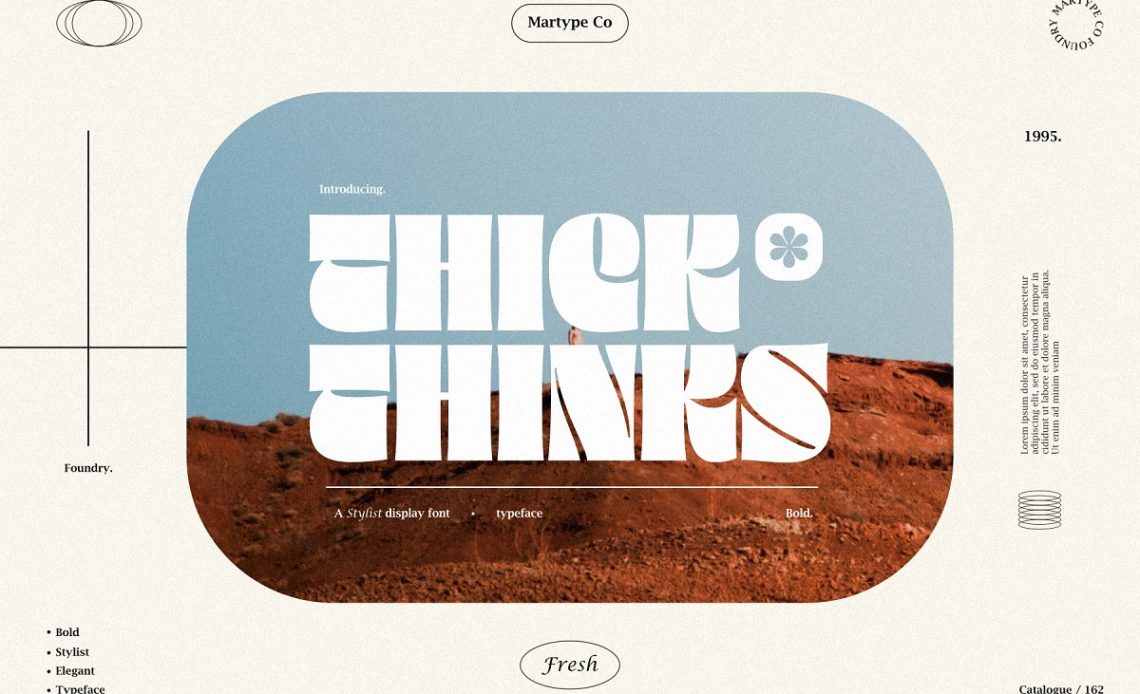
Are you looking for the perfect font to make your designs stand out? Look no further than Thick Thinks - the best font for digital display created by Umar Al Farouq!
This brand new display font features quirky letterforms that are sure to catch the eye. It's perfect for branding, headlines, logotypes, stickers, editorial designs, and more. Plus, it comes with emoticon symbols and arrows inside the glyphs, adding even more personality to your designs.
But that's not all - Thick Thinks also supports 66 languages, including Afrikaans, Albanian, Basque, Catalan, Danish, Dutch, English, Estonian, Filipino, Finnish, French, German, Italian, Portuguese, Spanish, Swedish, and more. So no matter what language your audience speaks, you can communicate with them effectively.